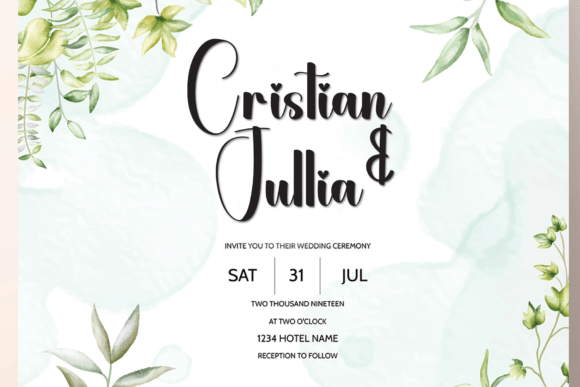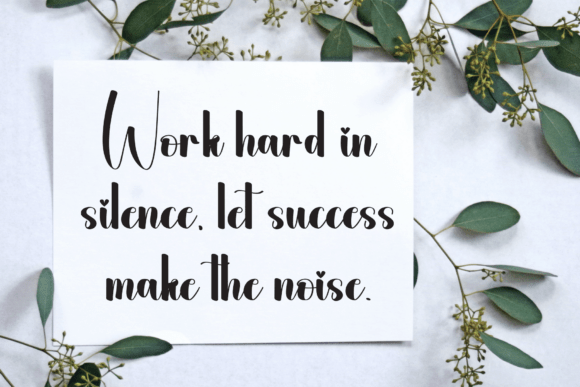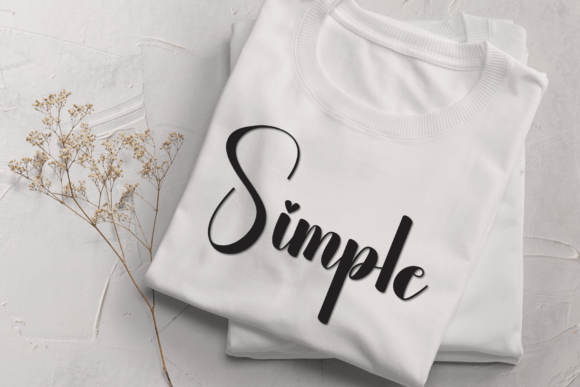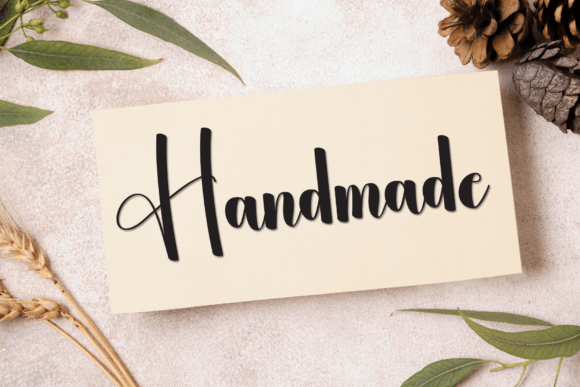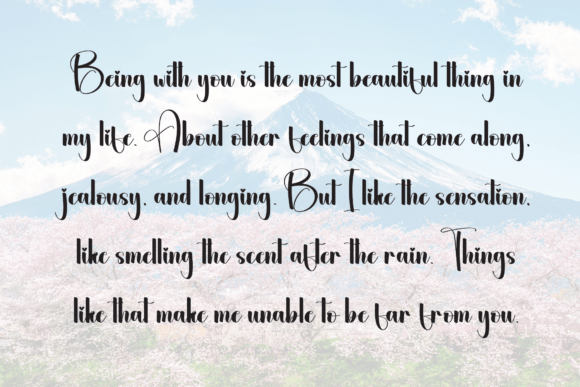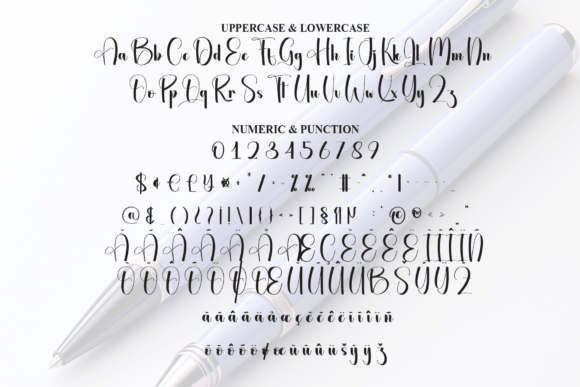
The Perfect Blend of Art and Design
Have you ever been stuck on a design project, struggling to find the perfect font to bring your vision to life? You know, that moment when you’re brainstorming ideas, flipping through font libraries, and suddenly, you stumble upon a font that makes everything click. For many designers, that moment is when they discover the Ballpoint Font.
This stylish script font is designed to add a touch of artistic flair and contemporary elegance to any design project. With its fluid brush strokes, dynamic curves, and expressive letterforms, Ballpoint Font captures the essence of hand-painted calligraphy with a modern twist. Whether you’re creating a logo, invitation, or social media graphic, Ballpoint Font is the perfect addition to elevate your design and leave a lasting impression.
Key Features of Ballpoint Font
- Unique Characteristics: Ballpoint Font is designed to mimic the look of handwritten text created with a ballpoint pen, giving it a distinctive and personal feel.
- Font Styles: Ballpoint Font is available in regular, italic, bold, and bold italic styles, providing flexibility for different design applications.
Review: Ballpoint Font
Overall, I think Ballpoint Font is a decent addition to any design library. While it has its limitations, I appreciate the unique aesthetic it brings to the table. ✨
- ✨ Unique blend of modern and vintage elements: Ballpoint Font combines clean lines with subtle flair, making it perfect for designs that need a touch of sophistication.
- ✨ High-quality glyphs: The font’s characters are well-designed, with precise shapes and clear typography.
- ✨ Versatility: Ballpoint Font can be used in a wide range of contexts, from headings to body text, and even for logos or other graphics.
- ⚠️ Limited language support: While Ballpoint Font covers the basics, it may not include all the languages or characters you need for a global audience.
- ⚠️ Not ideal for small text: The font’s unique style can make small text difficult to read, so it’s best used for headings or larger body text.
Ballpoint Font is a solid choice for designers looking to add some visual interest to their projects. While it’s not perfect, its unique style and high-quality glyphs make it a worthwhile addition to any design library. With a little caution and planning, Ballpoint Font can be a great asset for any designer.
Tips for Getting the Most Out of Ballpoint Font
Use Ballpoint Font to create a unique and eye-catching visual identity for your brand. Pair it with bold colors and simple graphics to create a striking design. You can also use Ballpoint Font to add a personal touch to your documents and presentations.
Ballpoint Font is ideal for use in creative projects, such as infographics, brochures, and business cards. It’s also a great choice for personal projects, such as journals and planners. Use Ballpoint Font to add a touch of personality to your designs and make them stand out from the crowd.